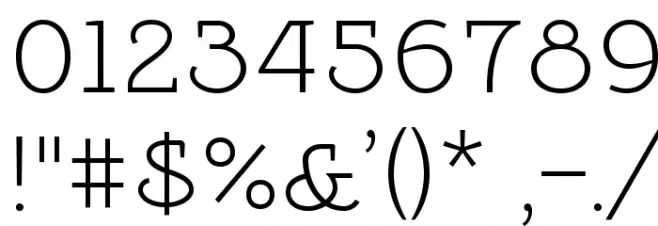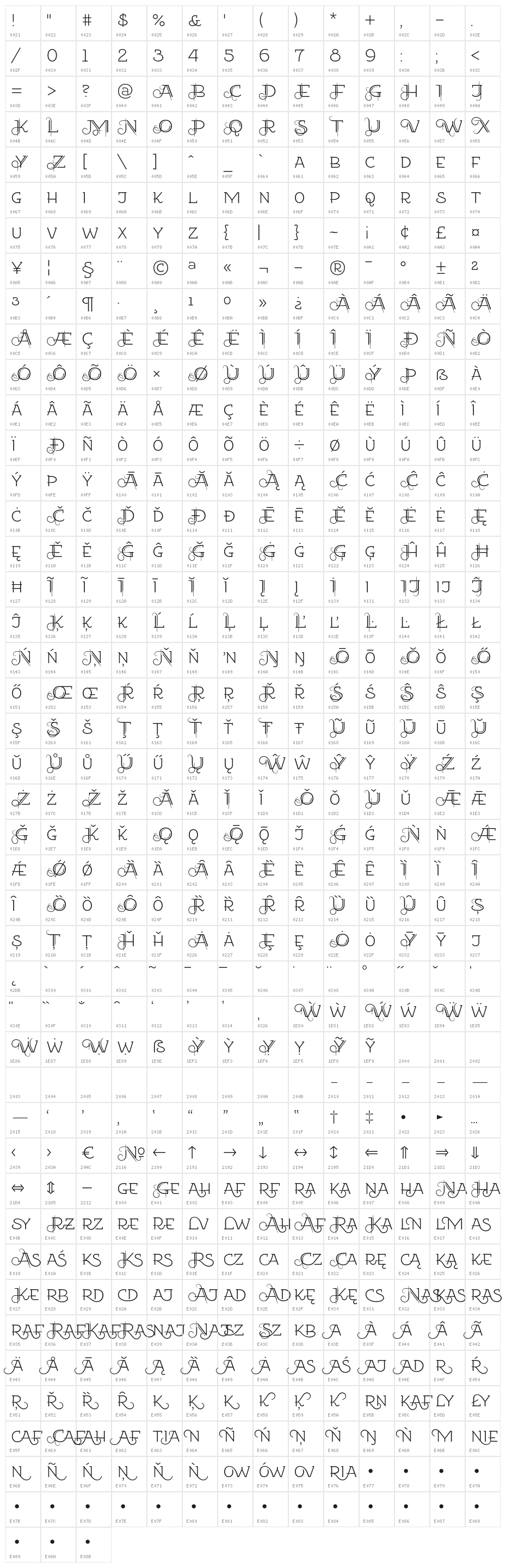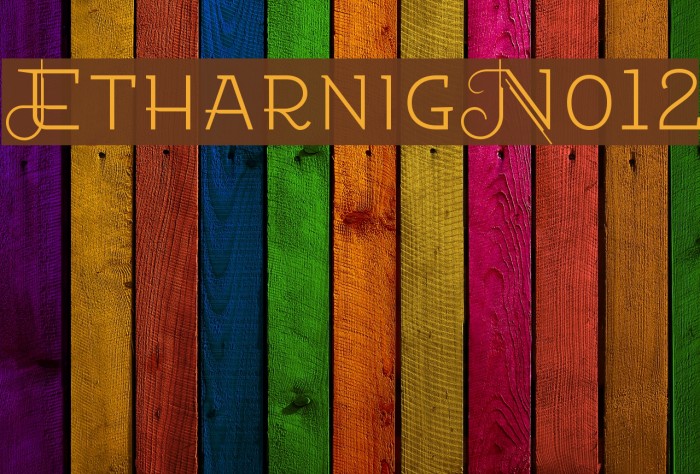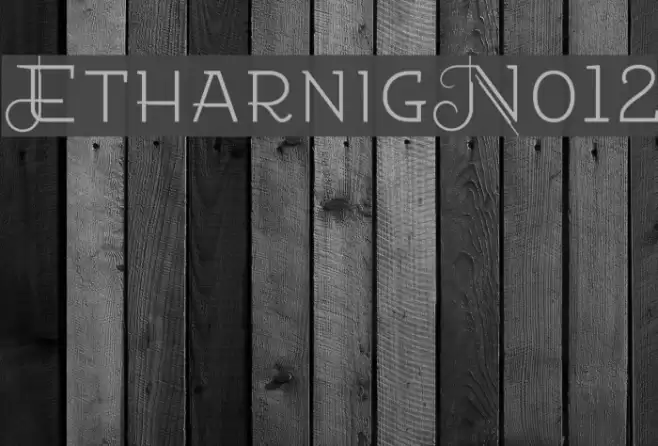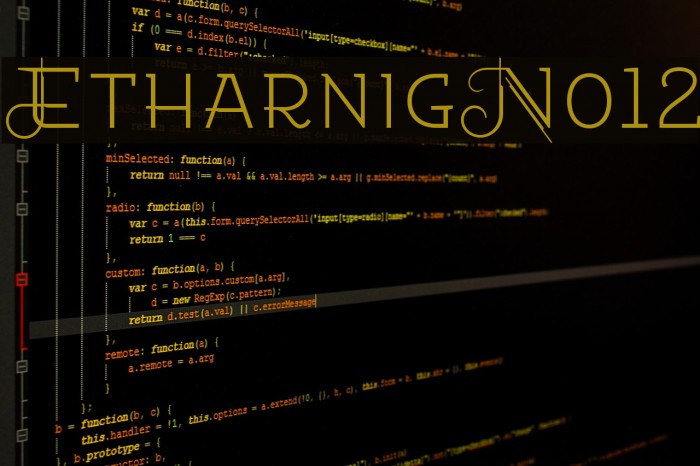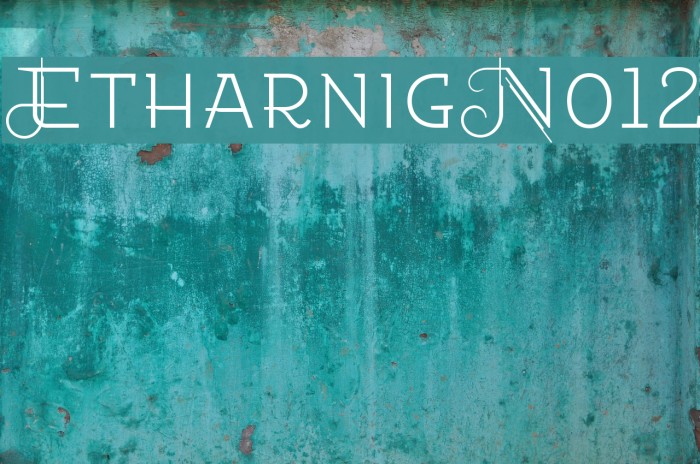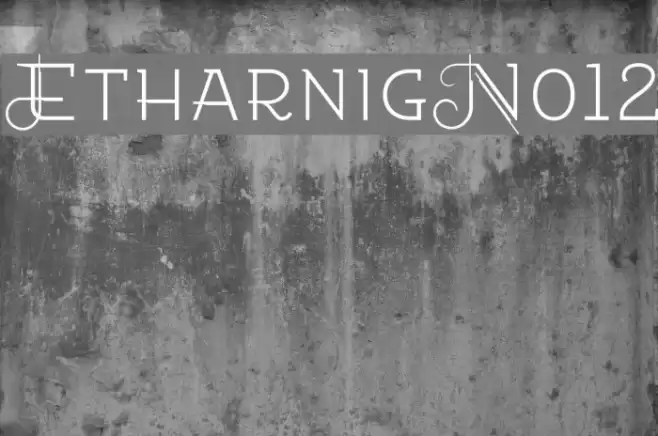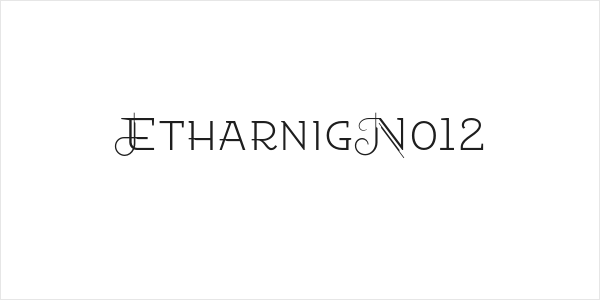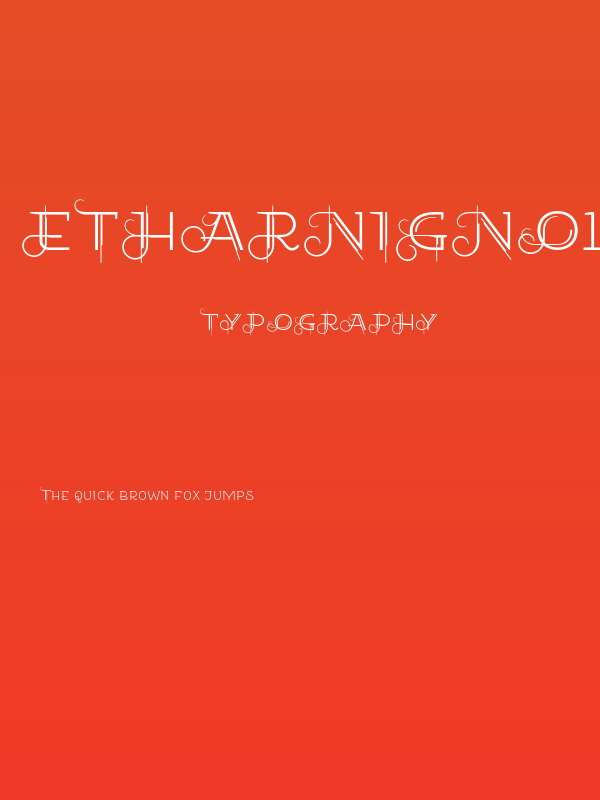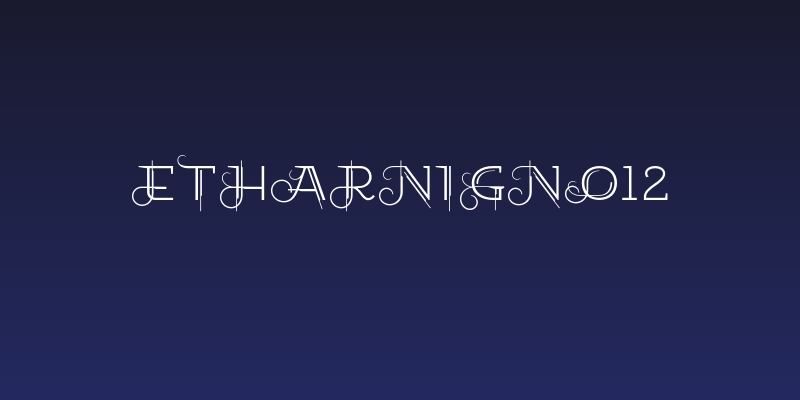
EtharnigNo12 Font
EtharnigNo12 Description
This font features an elegant and decorative style, characterized by intricate swirls and flourishes that extend from the main strokes of each letter. The uppercase letters are particularly ornate, with each character displaying unique embellishments that add a sense of sophistication and artistry. The lowercase letters maintain a more straightforward design, offering a balance between readability and decorative appeal. The numerals are clean and consistent, complementing the overall aesthetic without overwhelming the design. Special characters are included, each with its own distinct flair, enhancing the font's versatility for various creative applications.
| Use Case | Logos, Invitations, Decorative Text |
| Proposed Projects | Ideal for wedding invitations, luxury branding, decorative signage, and artistic projects. |